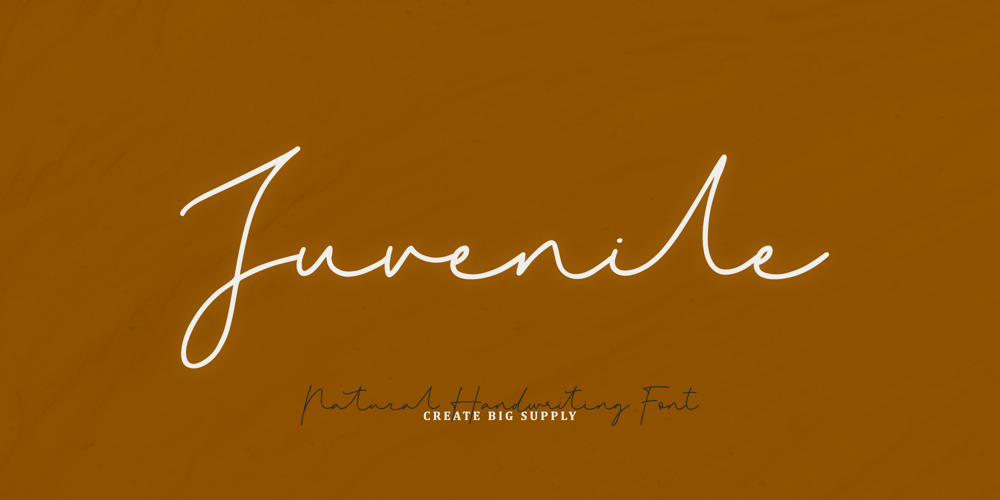
Juvenile Handwriting Font Family was designed by Irpan Maulana and published by Create Big Supply. Juvenile Handwriting contains 1 styles and family package options. Darling Moods is a sleek and elegant script font. It has a beautiful, natural handwriting style that will leave an authentic impression on your designs! Features:UppercaseLawercaseNumbers and punctuationMultilingualPUA Encoding